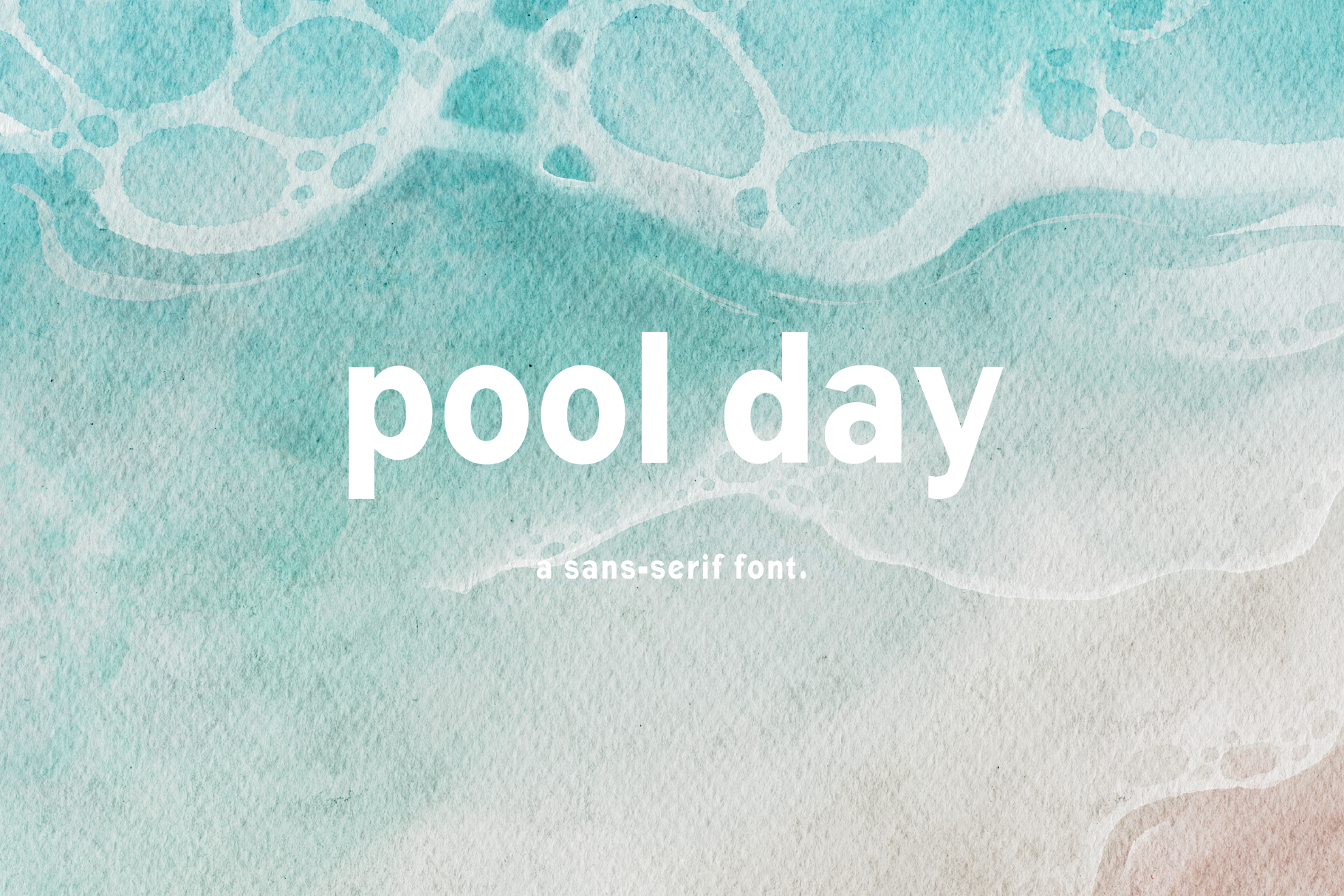
Pool Day | A Sans-Serif Font
The Pool Day font is a summer-inspired font perfect for brands, businesses, and marketers that are looking for a sans-serif font with a bit of character.